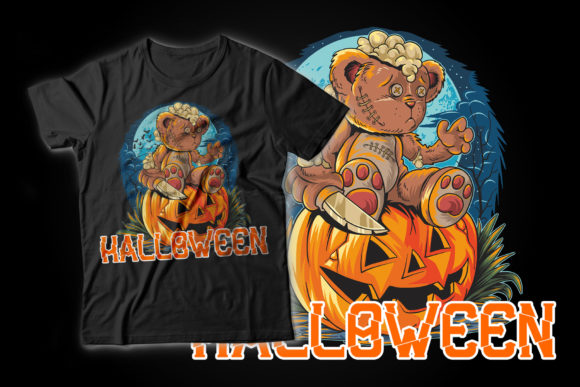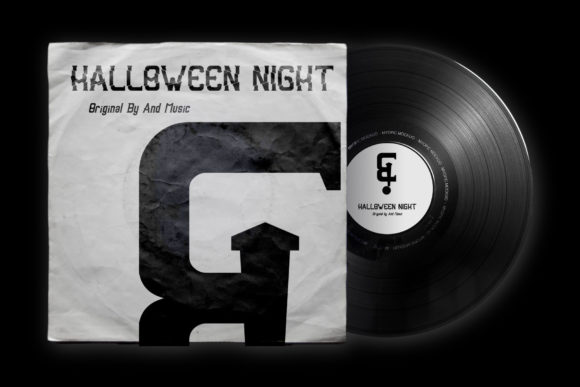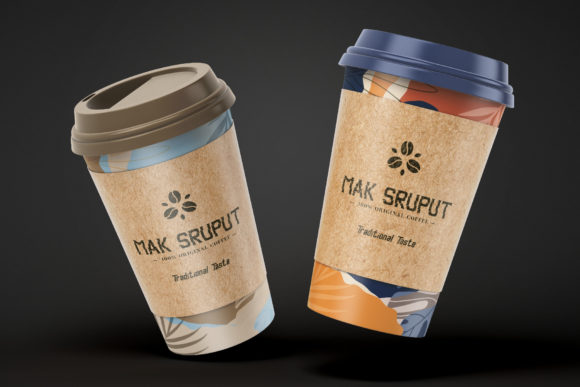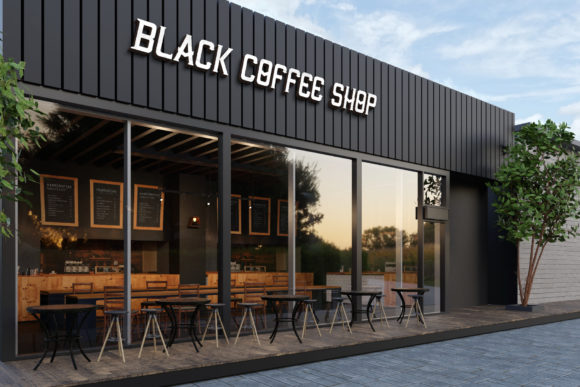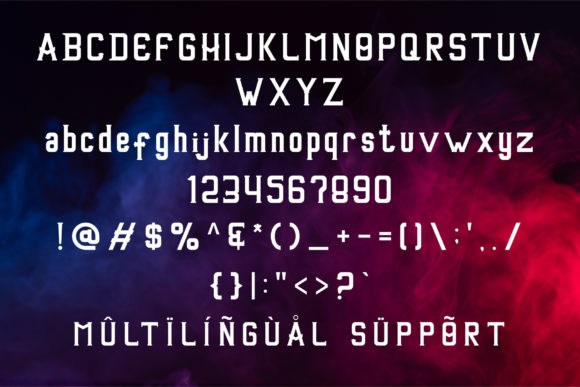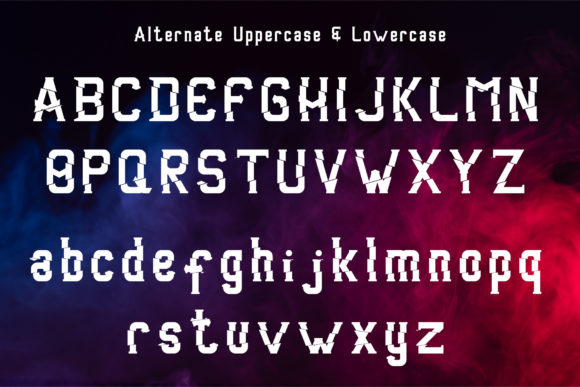
Introduction to Good Father Font
Remember the moment when you finally found the perfect font to elevate your creative project? The feeling of excitement and satisfaction that comes with it is unmatched. For designers, discovering a high-quality font that perfectly complements their vision is a treasure trove of inspiration. This is exactly what the Good Father Font offers – a cool, bold, and modern display font that can take your designs to the next level.
As a valuable design resource, Good Father Font is a must-have for any creative project. With its PUA encoded features, accessing all the amazing glyphs and ligatures is a breeze. Whether you’re working on a logo, a brochure, or a social media graphic, this font is sure to make your design stand out. And the best part? You can download it for free, complete with a transparent background, making it perfect for any design application.
Key Features of Good Father Font
- Unique characteristics include a modern and elegant design, making it suitable for a wide range of creative projects.
- Perfect for use in various design contexts, including logos, graphics, and typography-based designs.
Honest Review: Good Father Font
I recently had the chance to work with the Good Father Font, and I must say it’s a solid addition to any designer’s arsenal. This high-quality font is perfect for creative projects that require a clean, modern look.
What works well is the font’s versatility – it’s suitable for both digital and print designs, and its transparent background makes it easy to use in various design contexts. The font’s sleek design and large character set make it a great choice for headings and body text alike.
- ✨ Clean and modern aesthetic
Tips for Getting the Most Out of Good Father Font